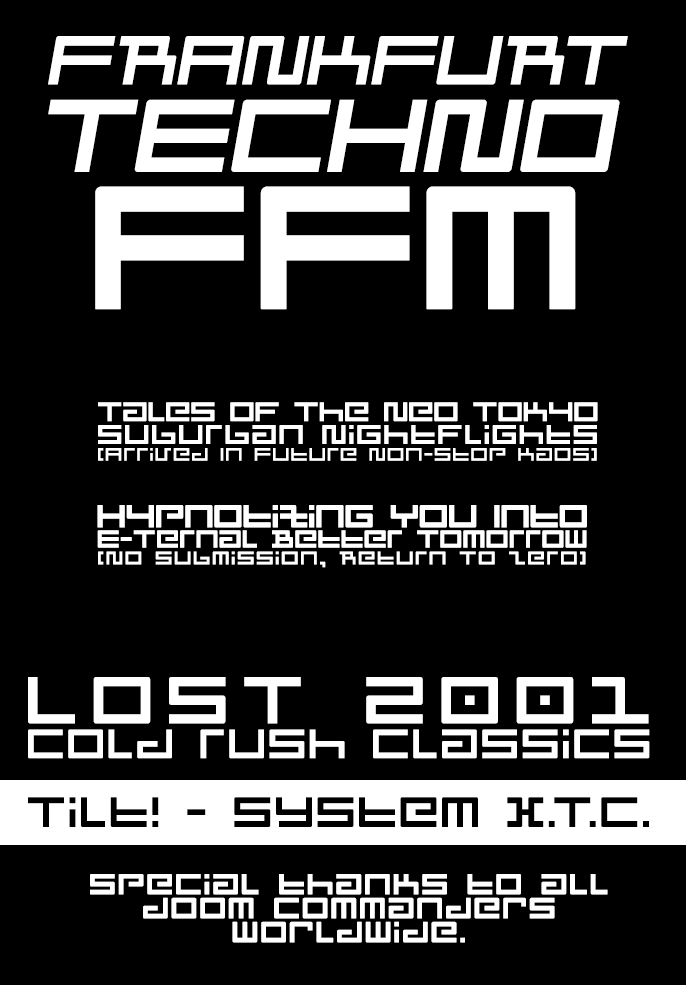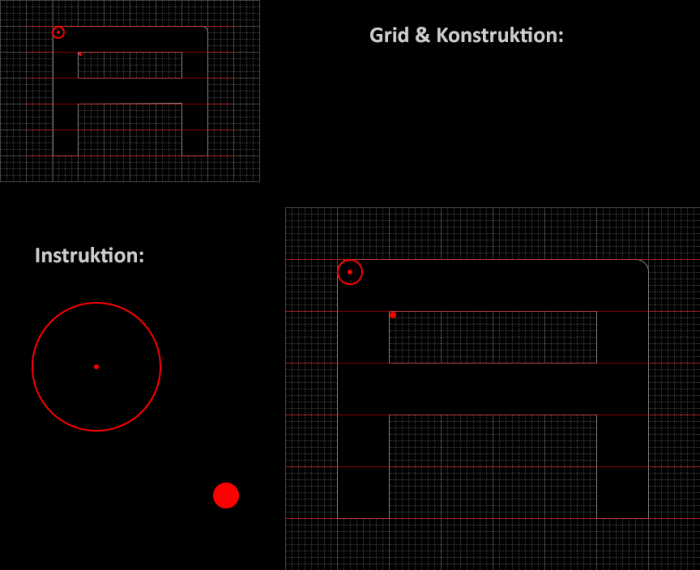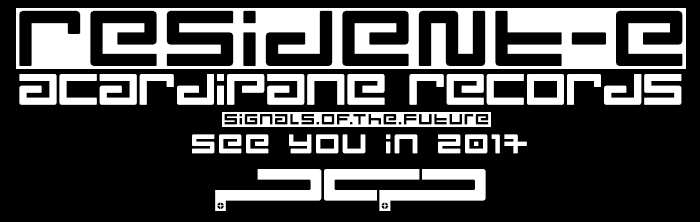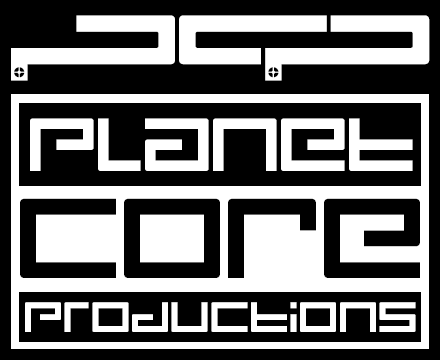
• F.F.M. (Round) — Constructivism style lettering
Revision of a typeface for one of my all-time favorite record labels, the German (Frankfurt) "Planet Core Productions". The typeface was seen on many of their vinyls and cds as well as various other stuff. It originated back in 1992 and was custom made by Paul Nicholson for Planet Core Productions.
The original came as a minuscules (lowercase) only, plus it had fewer symbols & punctuation marks. So I took the liberty of filling in the blanks, and expand the character set.
Besides the inclusion of a uppercase set I also added some extra symbols and punctuations as well as a hand full of alternative forms that I gathered from various media such as CD, vinyl and posters.
This is the Rounded style variation for F.F.M. and this version features rounded/soft corners.